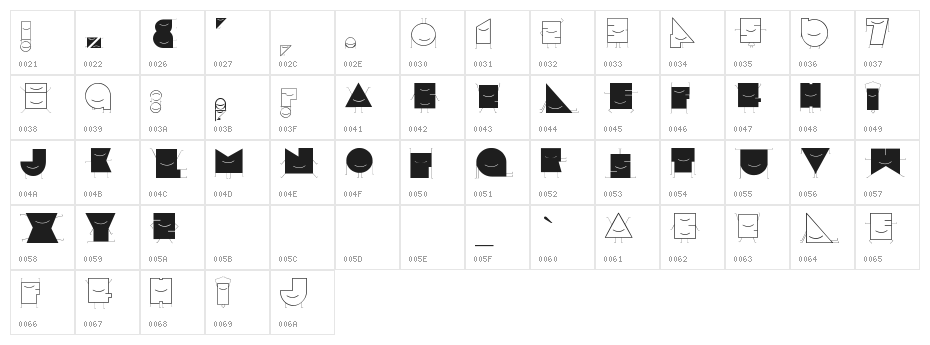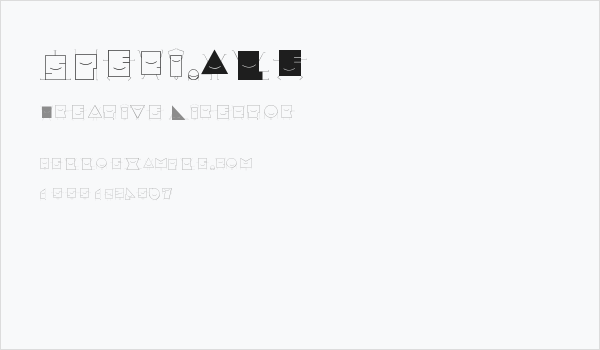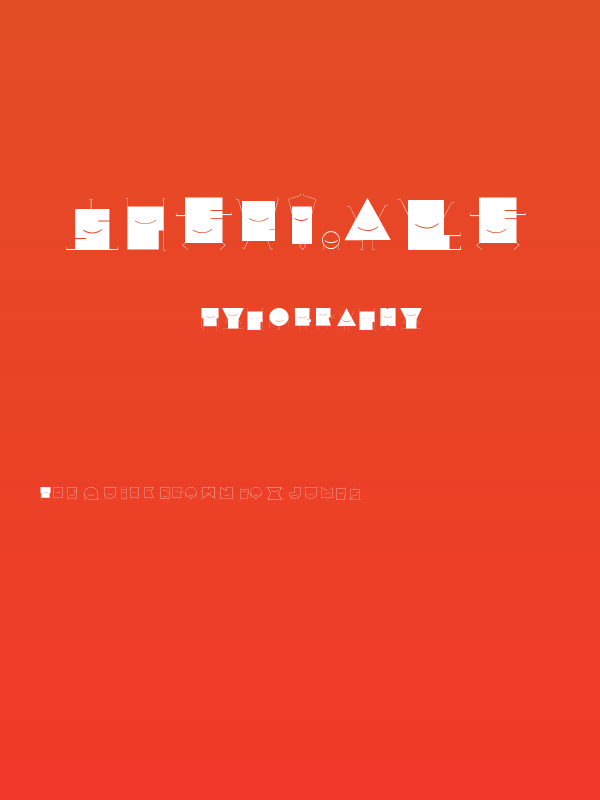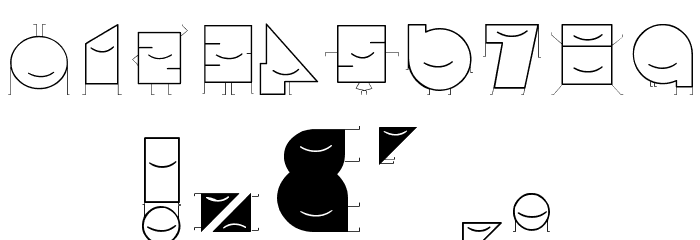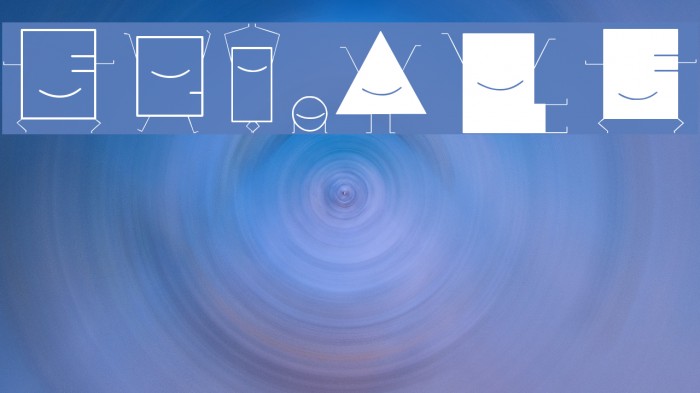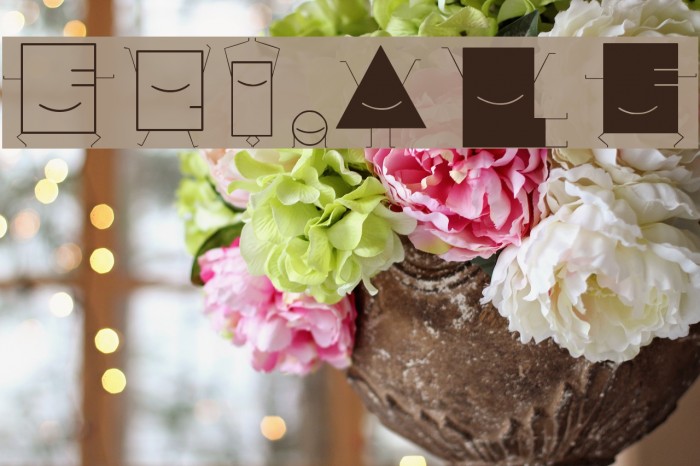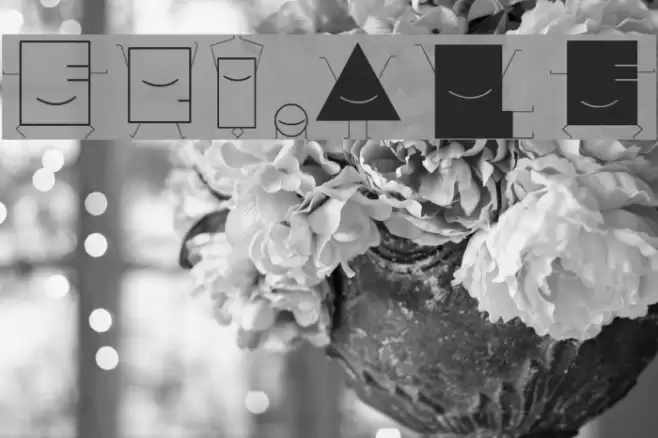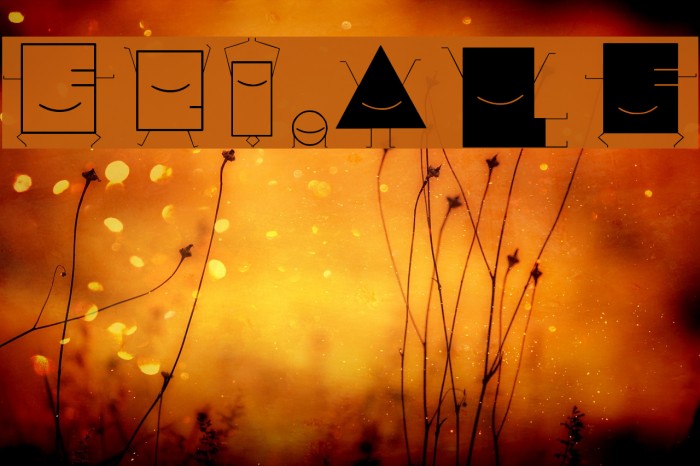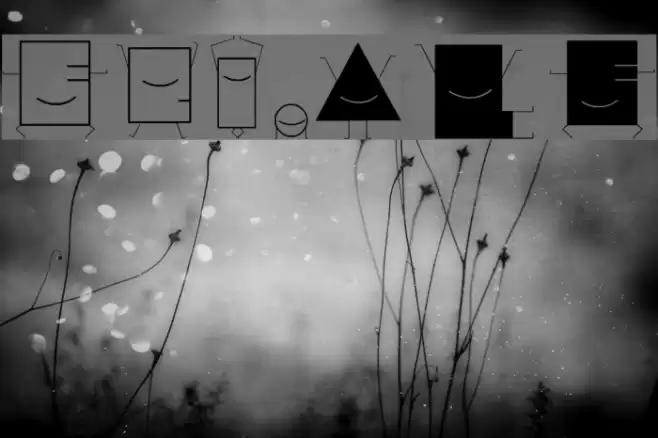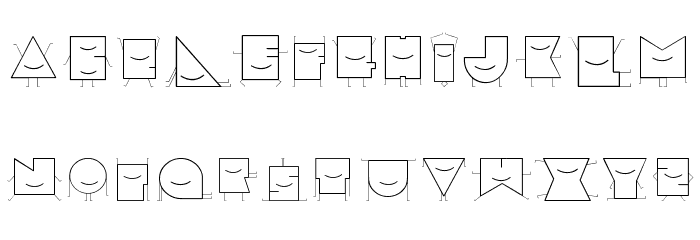
speci.ALE Font
speci.ALE Description
This font features a playful and whimsical design, characterized by geometric shapes and smiling faces incorporated into each letter and number. The uppercase and lowercase letters, as well as the numerals, are crafted with a mix of solid and outlined forms, creating a dynamic visual contrast. The font's unique style is both eye-catching and humorous, making it ideal for projects that require a fun and engaging aesthetic. The special characters are also designed with the same playful elements, ensuring consistency across the entire character set.
| Overall Style | Playful |
| Use Case | Logos, Posters, Creative Titles |
| Proposed Projects | Ideal for children's books, playful branding, party invitations, and creative posters. |